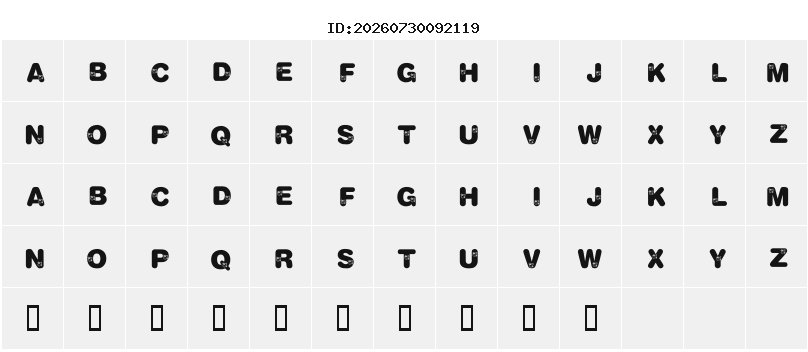
• Font Name: KR Artist
• Full Font Name: KR Artist
About KR Artist.ttf
KR Artist.ttf is a modern, elegant sans-serif font designed for ultimate readability and visual harmony. Perfect for branding, headlines, web design, and print materials.